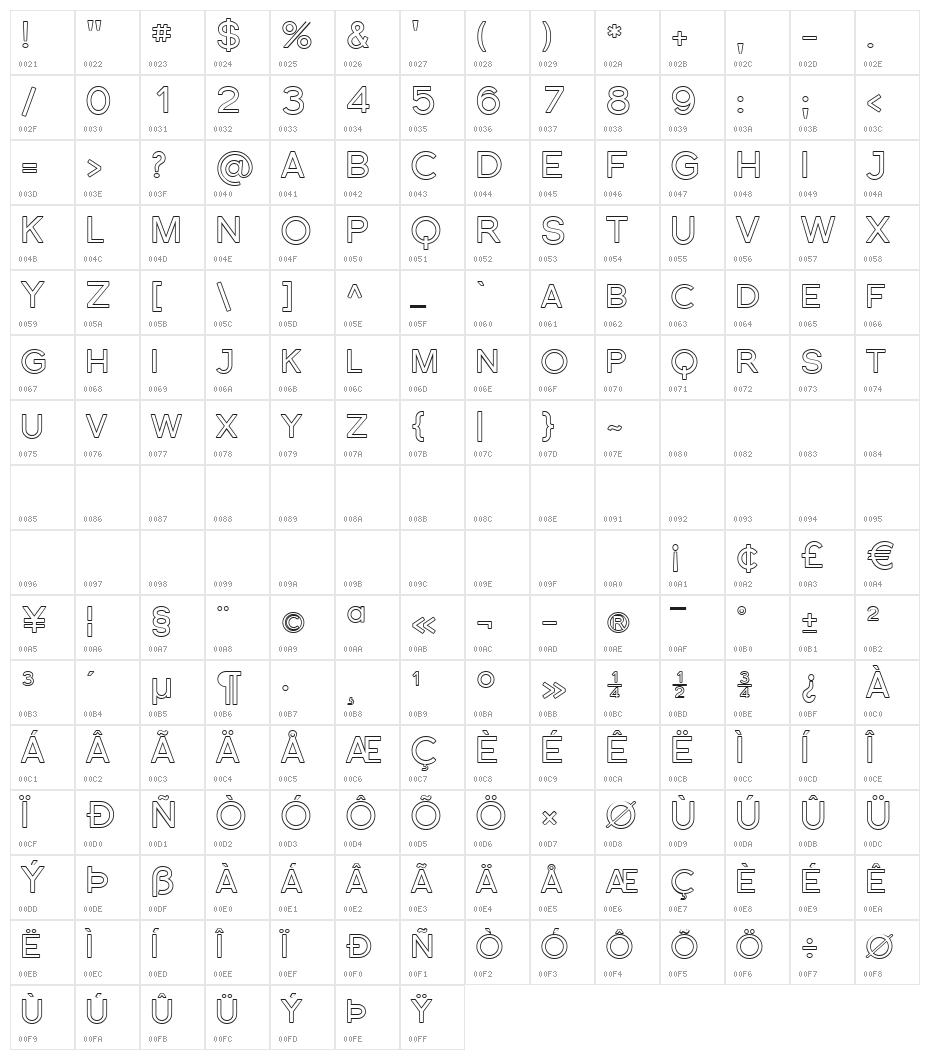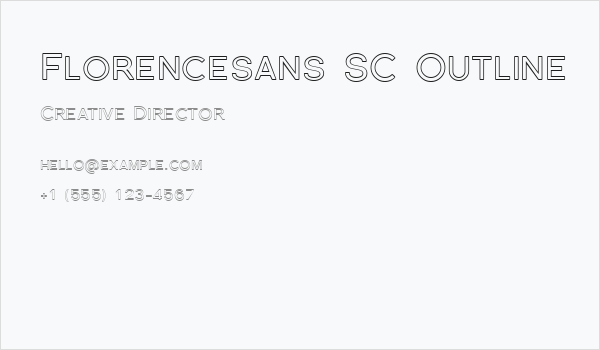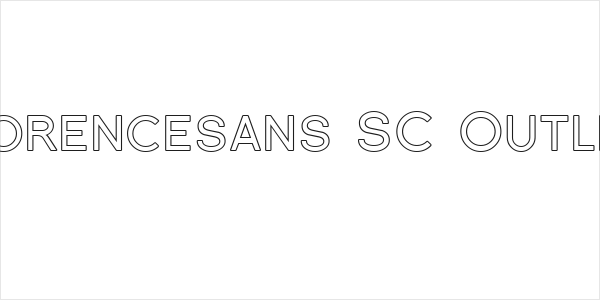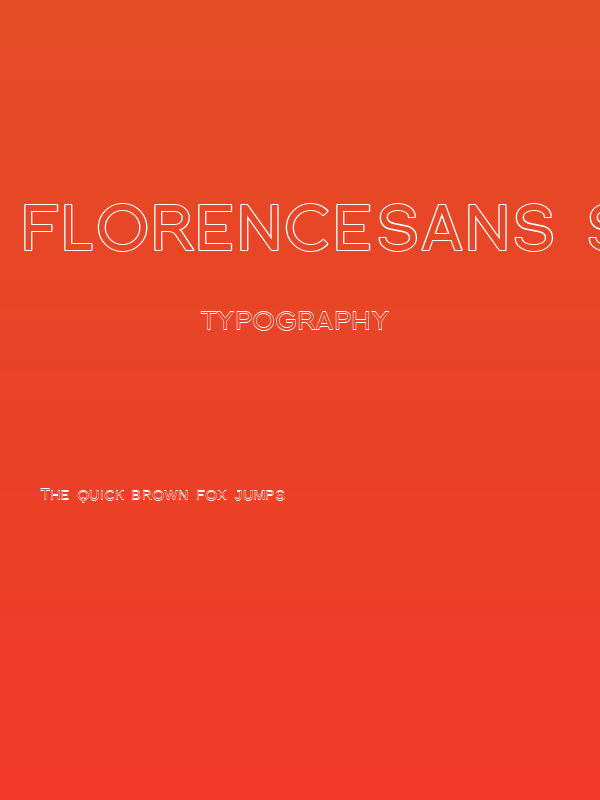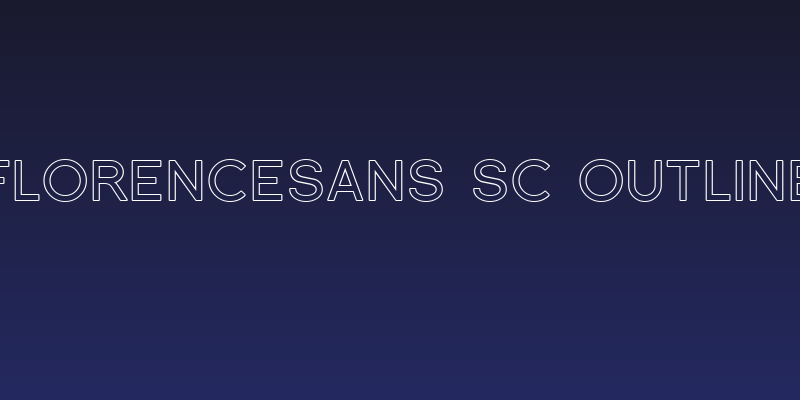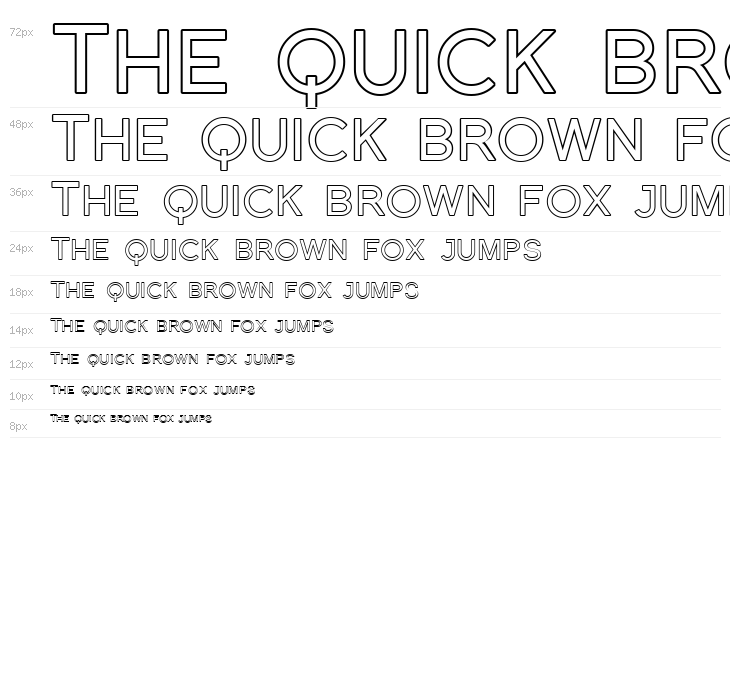
Florencesans SC Outline Font
Florencesans SC Outline Description
This font features a clean and modern outline style, characterized by its geometric and sans-serif design. The letters are crafted with a uniform stroke width, creating a balanced and harmonious appearance. The outline effect gives it a unique and contemporary look, making it stand out in various design contexts. The uppercase and lowercase letters maintain a consistent style, with clear and legible forms. The numerals and special characters are designed to complement the alphabet, ensuring versatility across different applications. This font is ideal for projects that require a modern and stylish touch, offering a fresh take on traditional sans-serif fonts.
| Proposed Projects | Ideal for branding, posters, headlines, and digital media where a contemporary and stylish look is desired. |